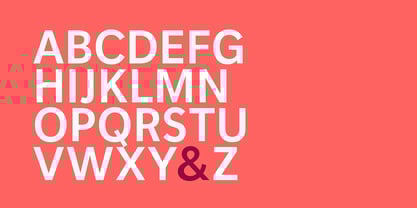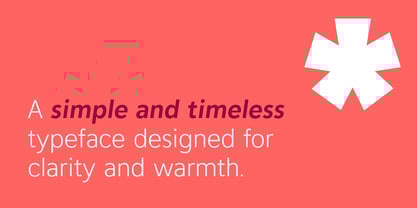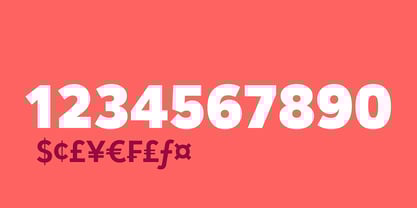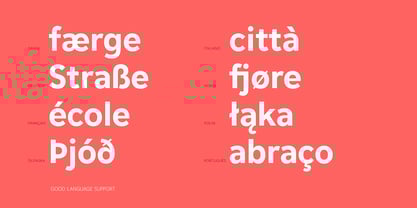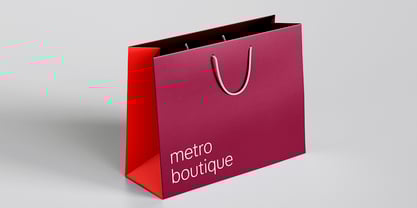
Scanno Variable
by Tarallo Design
The Scanno Variable Font Family was designed by Donald Tarallo and published by Tarallo Design. Scanno Variable contains 1 styles.
Scanno Variable is a clean and friendly sans serif variable font designed for clarity. Its humanist and geometric qualities provide a warm and contemporary feel, making it a versatile choice suitable for many industries. Sectors such as art, design, education, fashion, finance, health, insurance, and music will find the look of Scanno Variable to be an ideal fit. Use it in branding, publications, and UI/UX applications for excellent legibility. Scanno Variable comes in ten preset weights, from thin to black, offering versatility for body text, captions, headings, or display text. The design features open, angled terminal strokes, a tall x-height, and distinguishable character shapes to prevent letter confusion. These features make Scanno Variable an essential, highly legible, and versatile core font for any collection. The technical features include: • Variable font technology for seamless weight transitions • Ten preset weights from thin to black • Standard ligatures including ff, fi, and fl • Discretionary ligatures including fj, ft, and Th • A stylistic alternate y • Support for Western and Central European languages • A comprehensive selection of math symbols Originally released as a static family in 2018, Scanno was remastered in 2024 with a new black weight and expanded language support. In 2026, it was officially released as a variable font. Its design is inspired by the classics Akzidenz-Grotesk and Avenir. Scanno Variable is protected by copyright, eulas, international intellectual property laws, and the Digital Millennium Copyright Act (DMCA).
Tarallo Design, founded by Donald Tarallo and his associates, specializes in creating high-quality, original, and memorable typefaces that range from sans serifs to ornamental styles. With a rich educational background in art and design from Clark University, the Rhode Island School of Design (MFA), and the Basel School of Design in Switzerland, Don's passion for the creative process, form-giving, and craftsmanship began in childhood while working alongside his grandmother in her ceramic studio. His professional journey includes teaching and working in design across Europe and East Asia, which deepened his fascination with alphabets and languages. Since its establishment in 1997, Tarallo Design has catered to a diverse array of international clients and is based in Massachusetts. In addition to his design work, Don also shares his expertise as a professor, contributing to the next generation of designers.